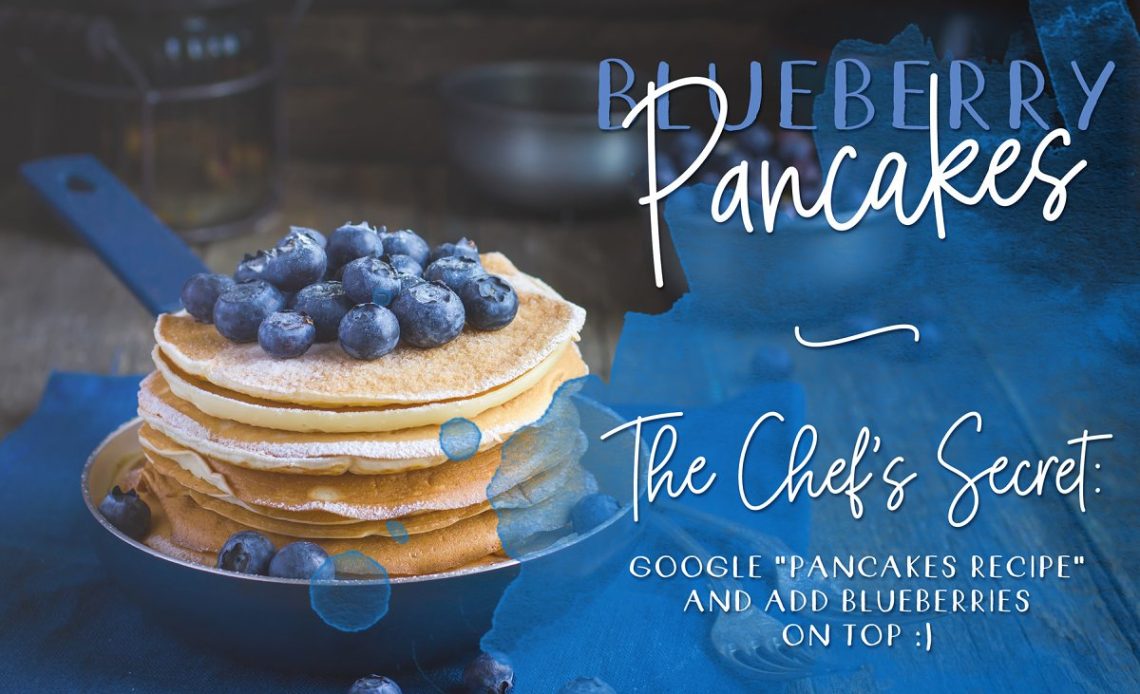
Introducing the Marshmallow Handwritten Font - the perfect choice for your signature style font needs. Created by Jessika, this cool and clean font is packed with amazing features, including alternates, nice ligatures, and swashes. Marshmallow has been designed to give you a fresh, readable signature style font, making it perfect for various projects such as branding design, blog headers, signatures, quotes, fashion apparel, business cards, stationery, and more.
With Marshmallow, you can add a touch of elegance and sophistication to your designs, making them stand out from the crowd. The font is versatile and perfect for any occasion, giving your designs a unique and professional look.
One of the best things about Marshmallow is that it comes with bonus swashes included as a separate font, allowing you to add a nice finishing touch to your text. The font also contains uppercase and lowercase letters, numerals, punctuations, and multilingual support for western and central European languages. It is compatible with any software that can read a standard font and is provided in both OTF and TTF formats.
In summary, Marshmallow is the best font for signature email and is a must-have for anyone looking for a stylish and elegant signature style font. With its unique features, versatility, and professional look, Marshmallow is sure to make your designs stand out. Contact me if you have any issues or requests concerning the font, and I'll be glad to help you.